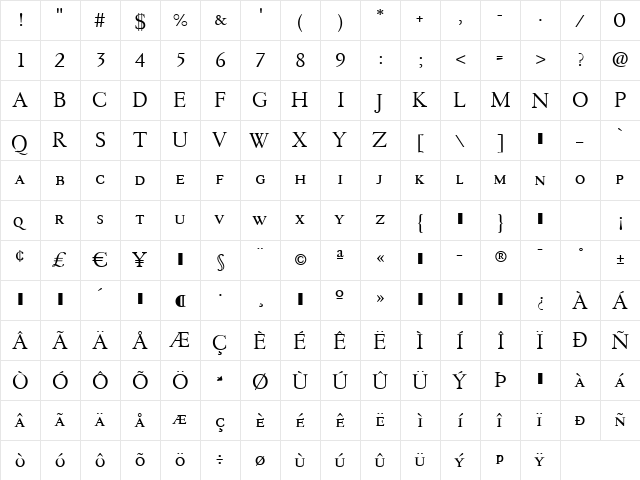
Monteverdi SC
Design Context for Monteverdi Typeface
Monteverdi offers clean, dependable letterforms without strong stylistic allegiance, making it a practical choice for designers who need flexibility.
Pro Tip: Pair Monteverdi with a font of contrasting weight or personality to build a more expressive typographic hierarchy.